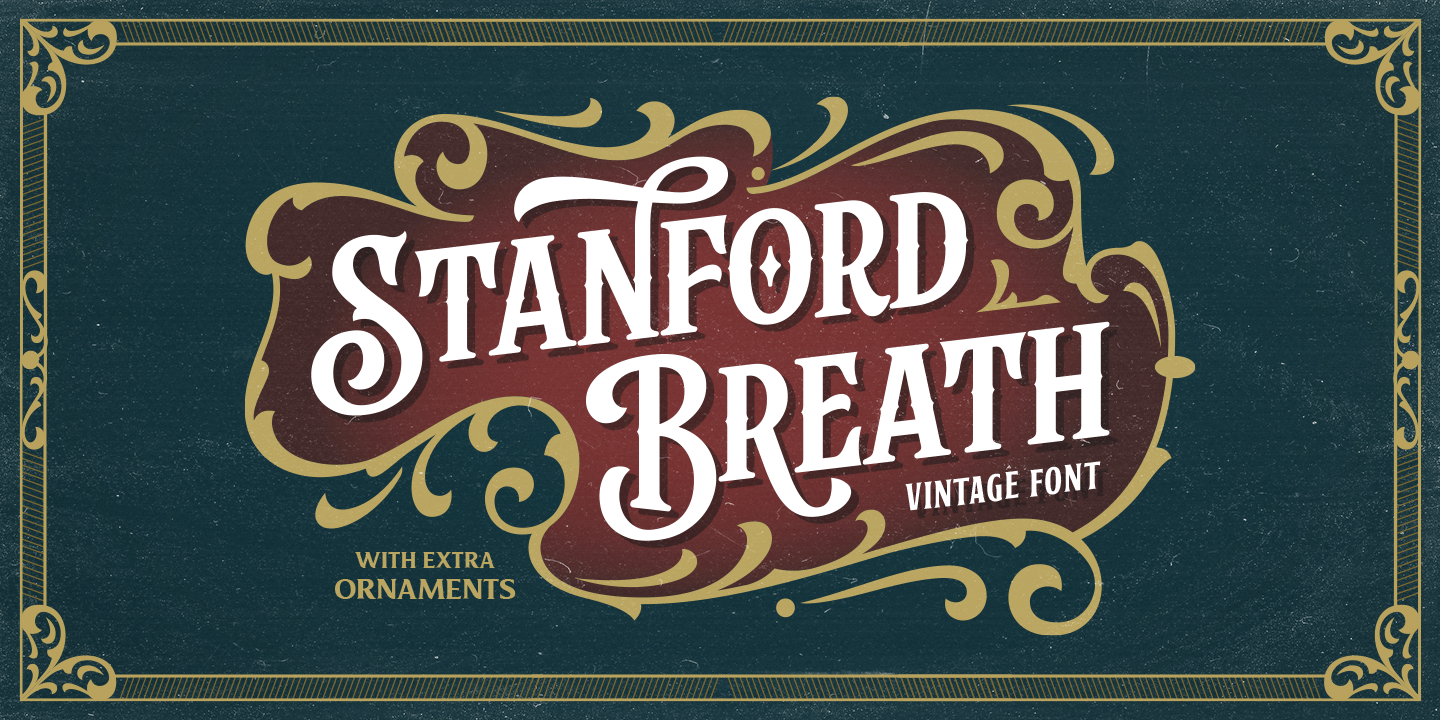
Stanford Breath Font is perfect for academic institution branding, scholarly publication layouts, prestigious university communications, intellectual conference materials, research presentation designs, educational excellence campaigns, academic journal typography, and distinguished scholarly documentation. This refined typeface excels in applications requiring academic authority and intellectual sophistication that captures the essence of scholarly excellence and educational prestige through distinguished visual character and academic credibility.
What makes Stanford Breath Font exciting is its scholarly elegance that perfectly captures the essence of academic excellence and intellectual distinction through thoughtfully crafted letterforms inspired by prestigious educational traditions. The font features refined character construction with academic proportions and scholarly styling that instantly conveys themes of intelligence, research, and educational authority perfect for institutions requiring academic credibility and intellectual market positioning.
The Stanford Breath Font family includes scholarly weights and academic variations with educational styling elements, offering designers comprehensive tools for creating distinguished academic compositions. The family provides consistent scholarly aesthetic with varying intellectual intensity for versatile educational communications and academic branding projects requiring genuine scholarly character and prestigious educational appeal.
The scholastically crafted letterforms of Stanford Breath Font ensure excellent readability while maximizing academic charm and scholarly sophistication, making it ideal for university marketing, academic publications, and educational communications. This distinguished typeface combines academic heritage with contemporary technical standards for outstanding performance in educational environments requiring authentic scholarly character and prestigious academic presence.